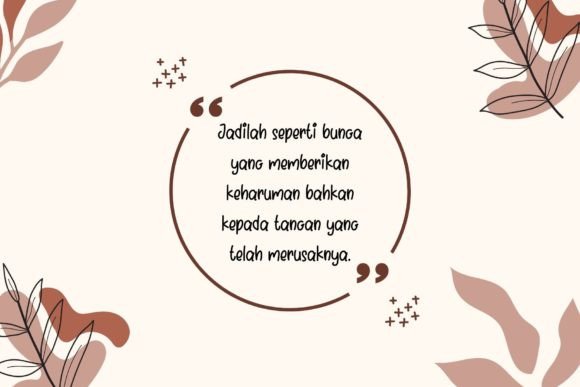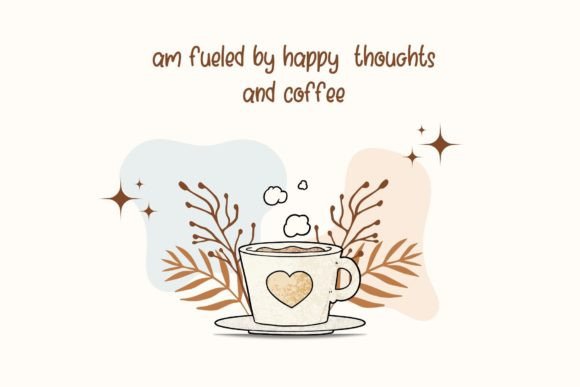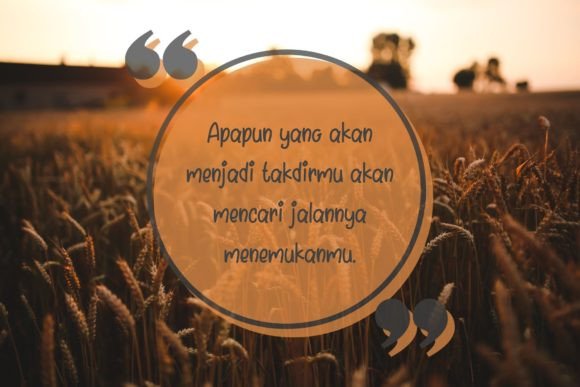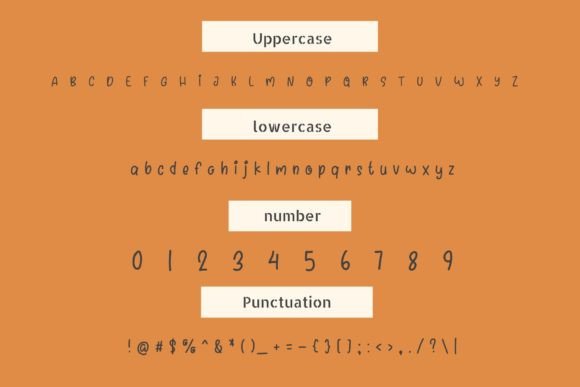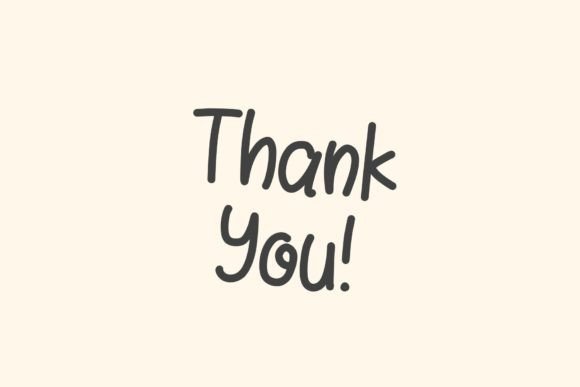
Introducing Britney Font: The Ultimate Handwritten Font for Creative Projects
Are you tired of using the same old fonts for your designs? Look no further! Britney Font is here to add a touch of playfulness and authenticity to your projects. This cute handwritten font is perfect for designers, crafters, and anyone looking to add a personal touch to their creations.
What is Britney Font?
Britney Font is a unique and charming handwritten font that embodies the spirit of creativity and fun. Its playful and authentic style makes it an ideal choice for a wide range of projects, from blog posts and logos to branding, ads, invitations, greeting cards, planners, photo albums, decorations, and more.
Why Choose Britney Font?
So, what sets Britney Font apart from other fonts? Here are just a few reasons why designers and crafters love this font:
- Playfulness: Britney Font has a carefree and whimsical feel that’s perfect for projects that require a touch of personality.
- Authenticity: This font has a genuine, handwritten feel that’s sure to connect with your audience.
- Versatility: Britney Font can be used for a wide range of projects, from digital designs to print materials.
- Ease of use: This font is easy to read and works well in both large and small sizes.
Britney Font is the perfect choice for any creative project that requires a personal touch. Here are some ideas to get you started:
- Blog posts: Add a touch of personality to your blog posts with Britney Font. It’s perfect for headings, subheadings, and even body text.
- Logos and branding: Create a unique and memorable logo with Britney Font. Its playful style is sure to make your brand stand out.
- Ads and marketing materials: Use Britney Font to add a touch of whimsy to your ads and marketing materials. It’s perfect for grabbing attention and making your message more engaging.
- Invitations and greeting cards: Create beautiful and personalized invitations and greeting cards with Britney Font. Its handwritten style is sure to make your cards feel special.
- Planners and photo albums: Add a touch of personality to your planners and photo albums with Britney Font. It’s perfect for headings, captions, and other design elements.
- Decorations: Use Britney Font to create beautiful and personalized decorations, such as wall art, signs, and other home decor items.
Tips for Using Britney Font
Here are some tips for getting the most out of Britney Font:
- Experiment with sizes: Britney Font works well in both large and small sizes. Experiment with different sizes to find the perfect fit for your project.
- Mix and match: Combine Britney Font with other fonts to create a unique and interesting design.
- Use it consistently: Use Britney Font consistently throughout your project to create a cohesive and professional look.
Britney Font is a versatile and charming handwritten font that’s perfect for designers, crafters, and anyone looking to add a personal touch to their creations. Its playful and authentic style makes it an ideal choice for a wide range of projects, from blog posts and logos to branding, ads, invitations, greeting cards, planners, photo albums, decorations, and more. With its ease of use and flexibility, Britney Font is sure to become a favorite in your design arsenal.